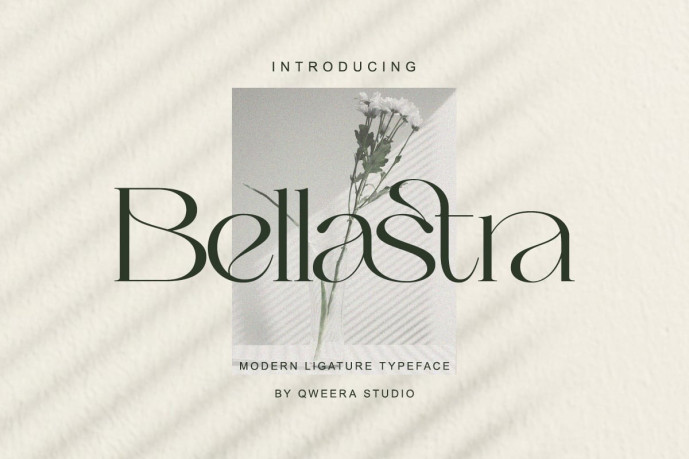
Bellastra – Modern Serif Font
Designer: IdhhamCholid
Bellastra – Modern Serif Font that blends elegance and clarity for premium branding. Its refined letterforms and smooth curves make it perfect for editorial layouts, magazines, fashion logos, and luxury packaging. Designed for creative professionals who value timeless beauty in typography.
Features
• Legular & Italic
• Uppercase & lowercase
• Alternates & ligatures
• Multilingual support
• High contrast letterform
• Professional kerning
Perfect For Luxury branding, editorial design, packaging, fashion logo, beauty ads, magazine covers, and wedding stationery.